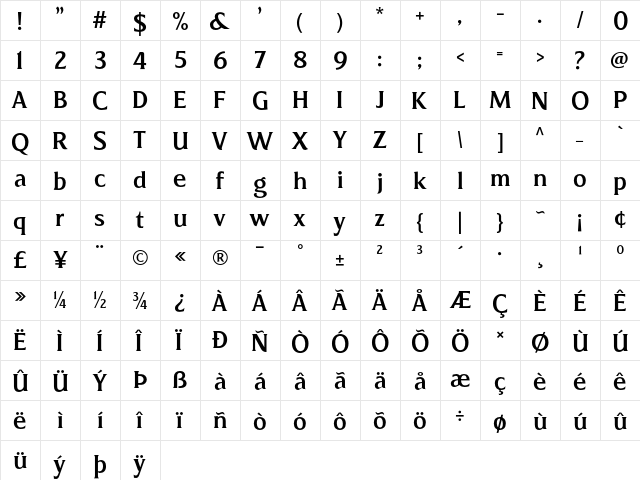
Revans Medium
| Foundry | Arterfak Project |
| Designer | Ahmad Ramzi Fahruddin |
Design Context for Revans Typeface
Revans offers clean, dependable letterforms without strong stylistic allegiance, making it a practical choice for designers who need flexibility.